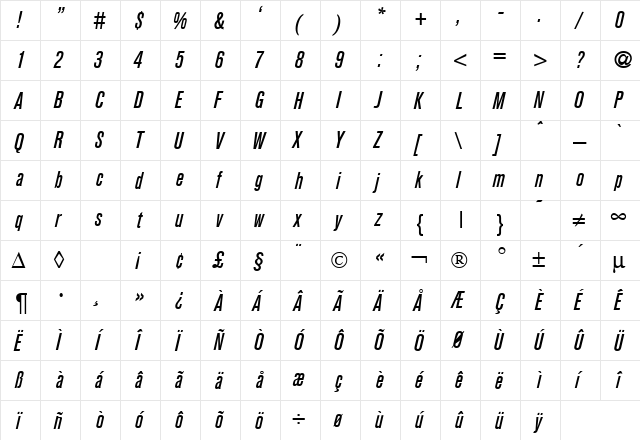
AkzentCondMedium RegularItalic Font Preview
Design Context for AkzentCondMedium Typeface
AkzentCondMedium takes a measured approach to typography — its balanced proportions and neutral character make it a reliable workhorse for both digital and print work. The dynamic lean of this cut emphasises speed and emphasis in any layout. The condensed width makes it efficient for tight spaces without sacrificing legibility.
Pro Tip: Use AkzentCondMedium for emphasis, pull quotes, and subheadings where its slanted energy can add rhythm to the layout.